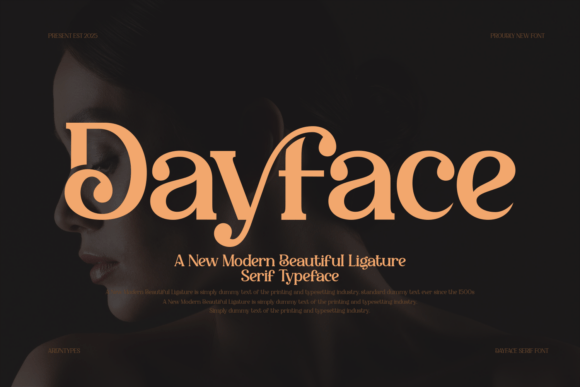
Dayface Font
“Dayface,” is a modern serif ligature typeface with a luxurious and elegant appeal ideal for branding, product design, and marketing visuals